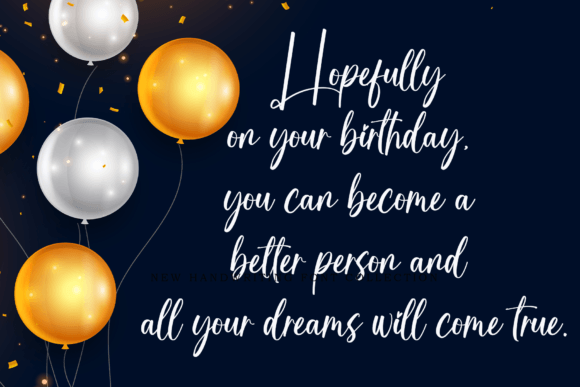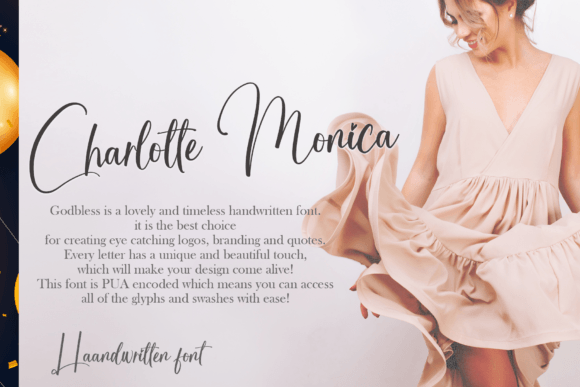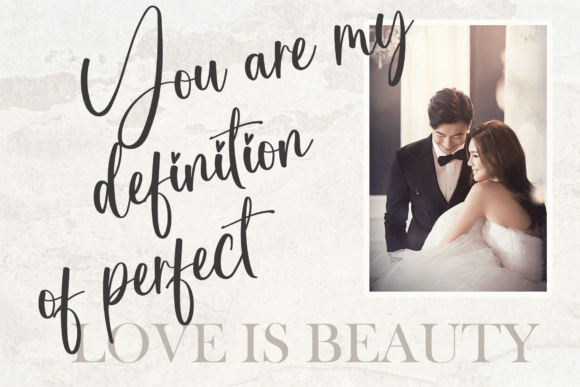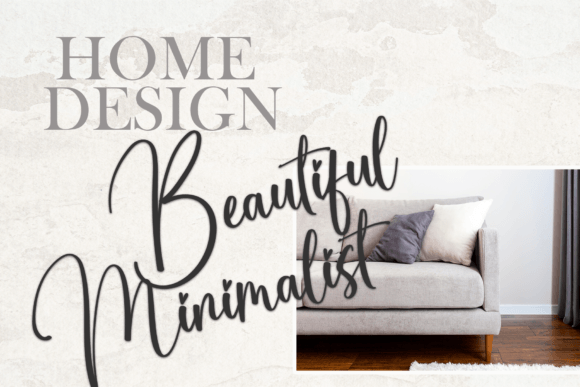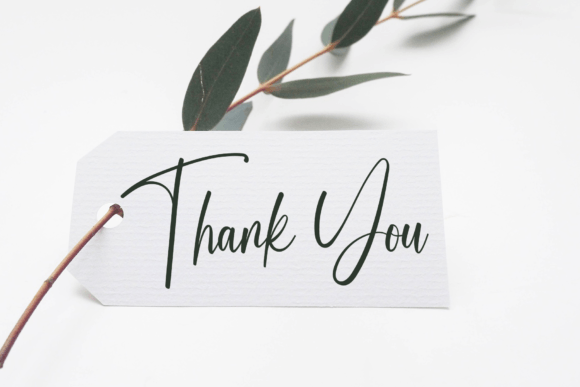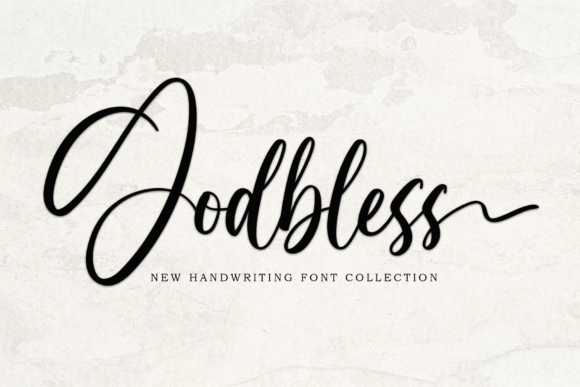
Introducing Godbless Font: The Perfect Choice for Romantic and Delicate Designs
Are you a designer or crafter looking for a font that exudes romance and elegance? Look no further than Godbless Font! This slim and delicate handwritten font is perfect for creating beautiful wedding invitations, cards, and other designs that require a personal touch. In this article, we’ll dive into the features and benefits of Godbless Font, and explore how it can elevate your designs to the next level.
A Dainty and Joyful Font
Godbless Font is a stunning example of a handwritten font that is both dainty and joyful. Its slim and delicate lines make it perfect for creating designs that require a touch of elegance and sophistication. The font’s playful and carefree feel also makes it ideal for designs that need to convey a sense of happiness and joy.
Ideal for Wedding Invitations and Cards
Wedding invitations and cards are a perfect match for Godbless Font. The font’s romantic and delicate feel makes it an ideal choice for couples looking to create beautiful and personalized wedding stationery. Whether you’re designing a formal wedding invitation or a more casual save-the-date card, Godbless Font is sure to impress.
Adding a Romantic and Personalized Touch
Godbless Font is all about adding a romantic and personalized touch to your designs. The font’s unique and handcrafted feel makes it perfect for creating designs that are one-of-a-kind and special. Whether you’re designing for a client or creating a personal project, Godbless Font is sure to bring a touch of warmth and personality to your work.
- Slim and delicate lines: Godbless Font features slim and delicate lines that make it perfect for creating elegant and sophisticated designs.
- Handwritten feel: The font’s handwritten feel makes it perfect for creating designs that require a personal touch.
- Dainty and joyful: Godbless Font is both dainty and joyful, making it perfect for creating designs that convey happiness and elegance.
- Perfect for wedding invitations and cards: The font’s romantic and delicate feel makes it an ideal choice for wedding invitations and cards.
How to Use Godbless Font
- Pair with other fonts: Godbless Font pairs perfectly with other fonts, such as serif or script fonts.
- Use for headings and body text: The font is perfect for both headings and body text, making it a versatile choice for a wide range of designs.
- Experiment with colors: Godbless Font looks great in a variety of colors, from soft pastels to rich jewel tones.
Godbless Font is a beautiful and delicate handwritten font that is perfect for creating romantic and elegant designs. Its slim and delicate lines, combined with its playful and carefree feel, make it an ideal choice for wedding invitations, cards, and other designs that require a personal touch. Whether you’re a designer or crafter, Godbless Font is sure to become a favorite in your font collection.